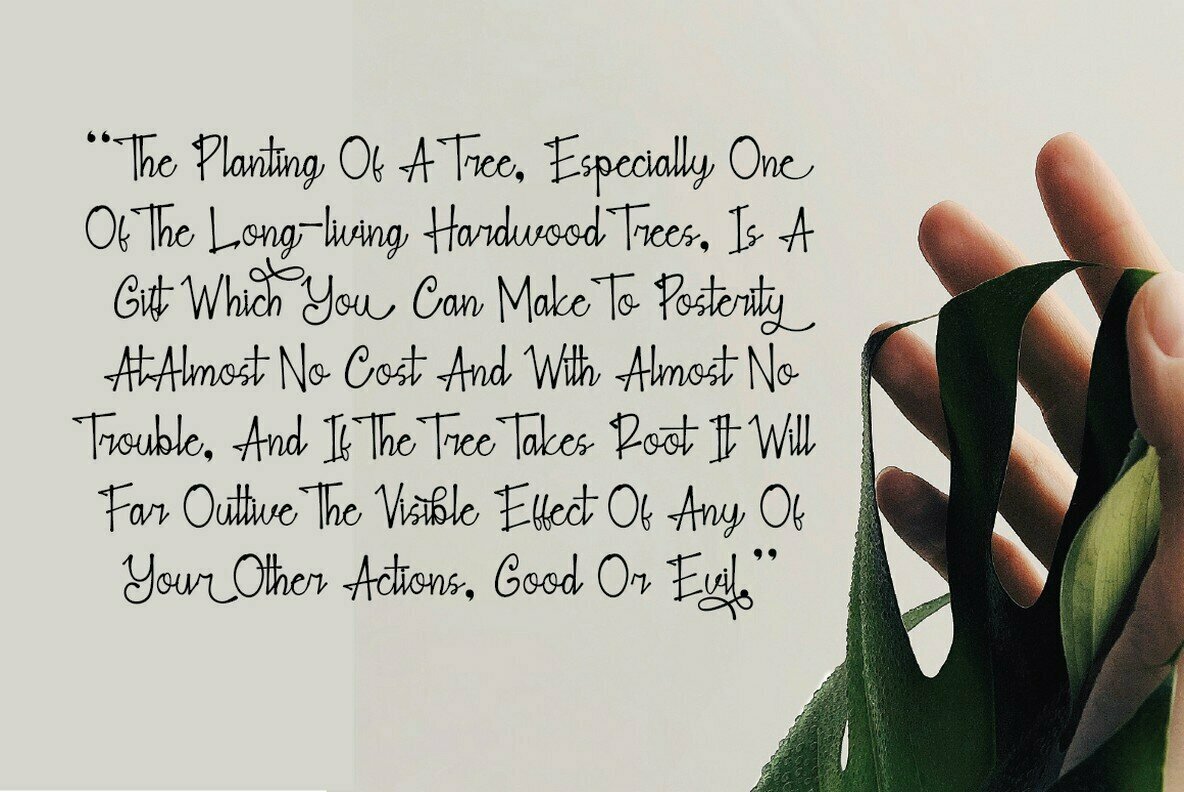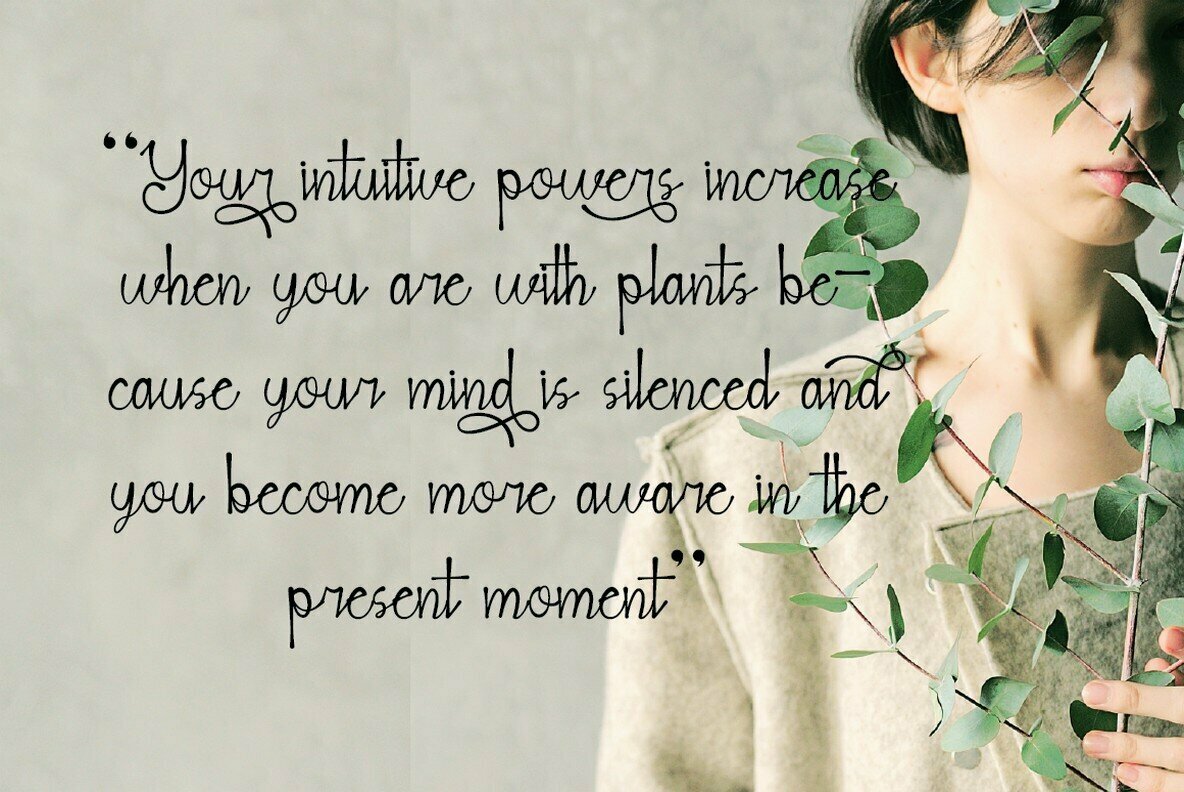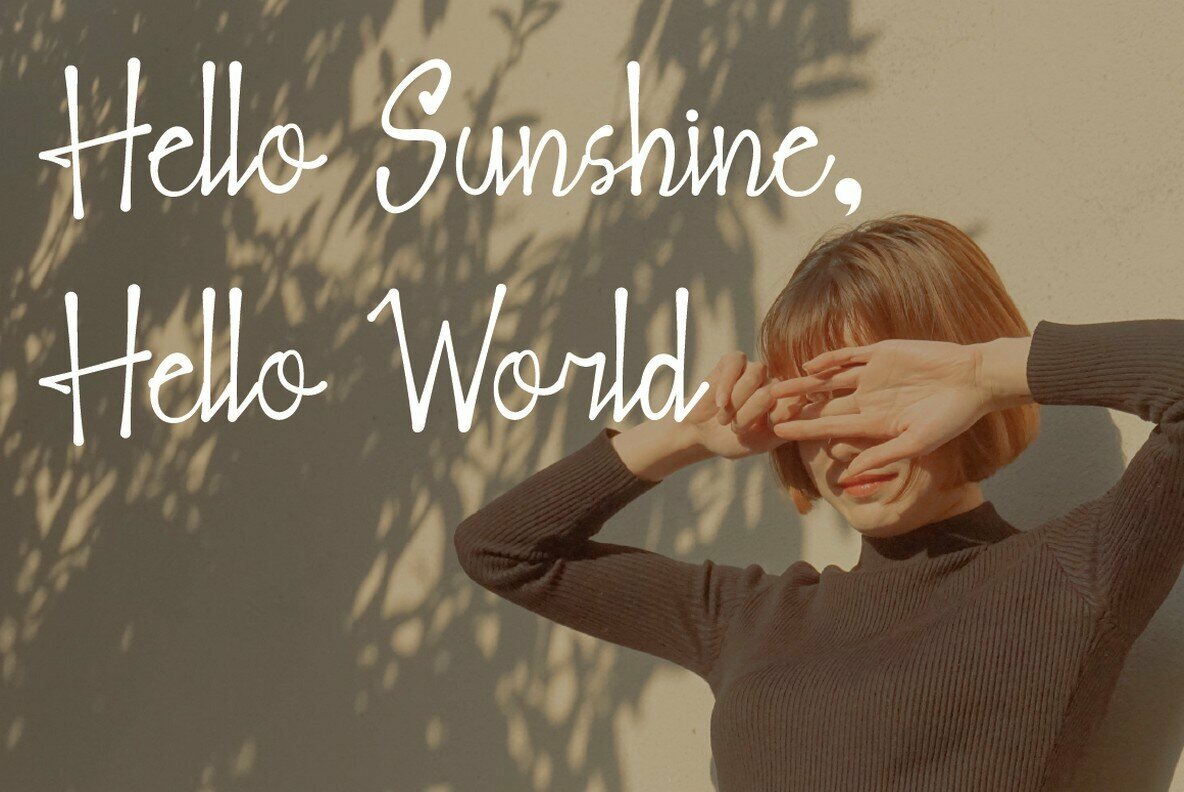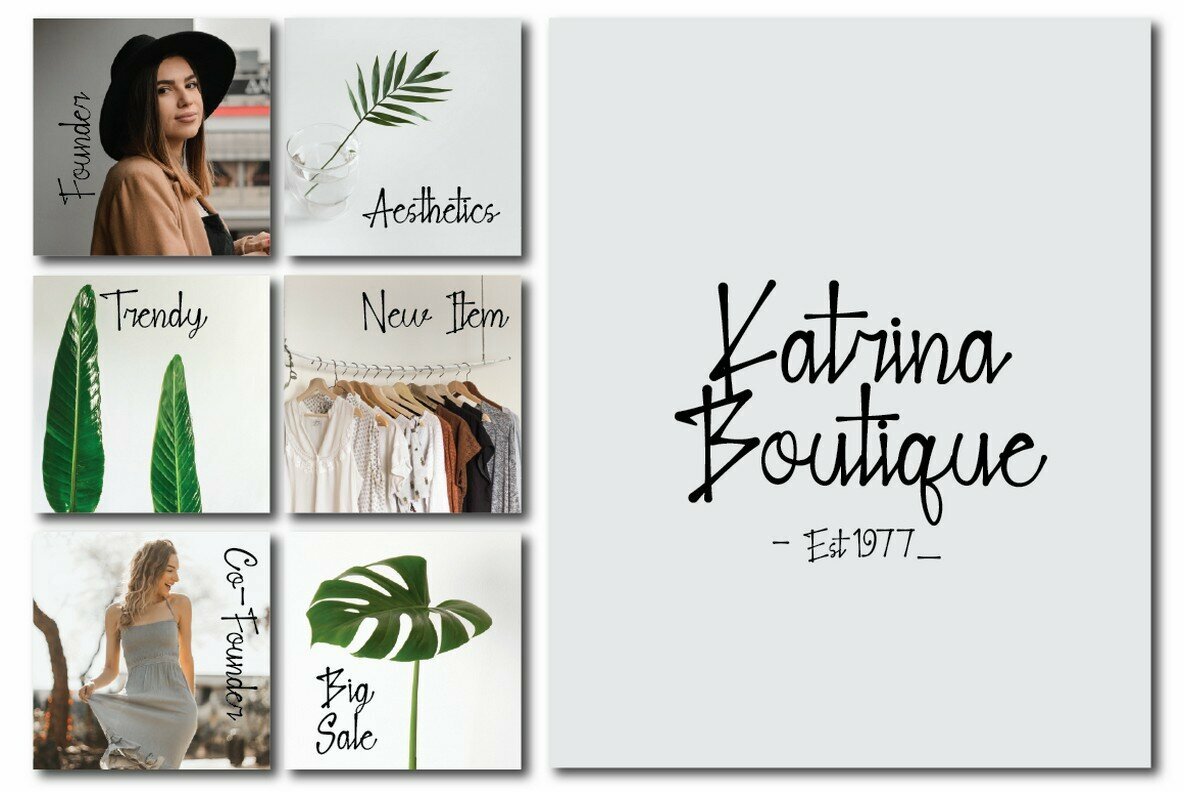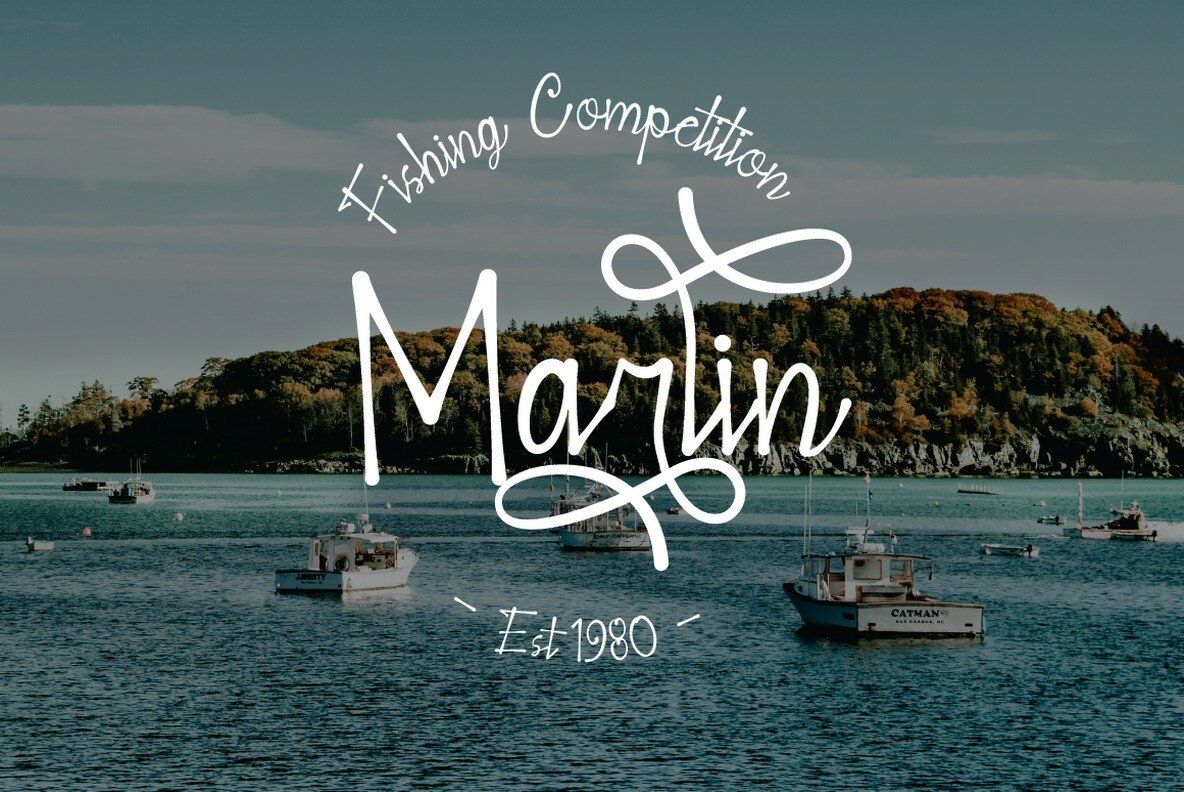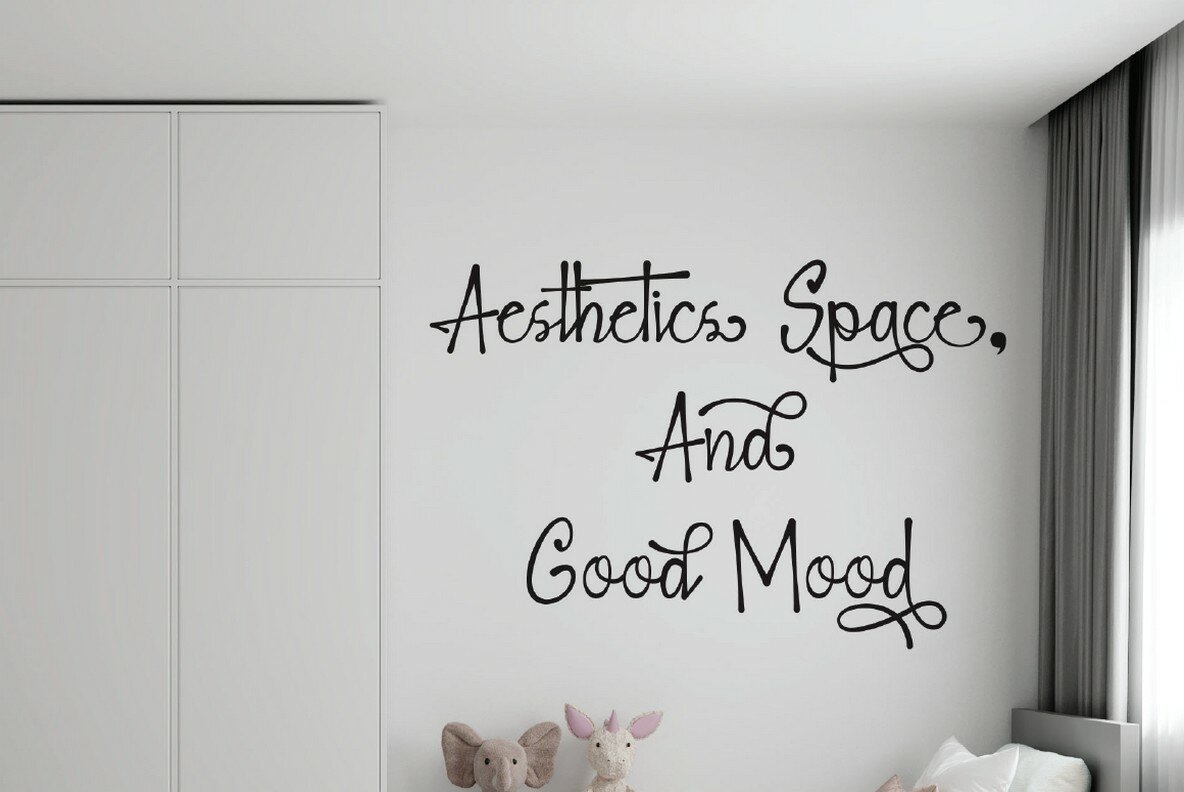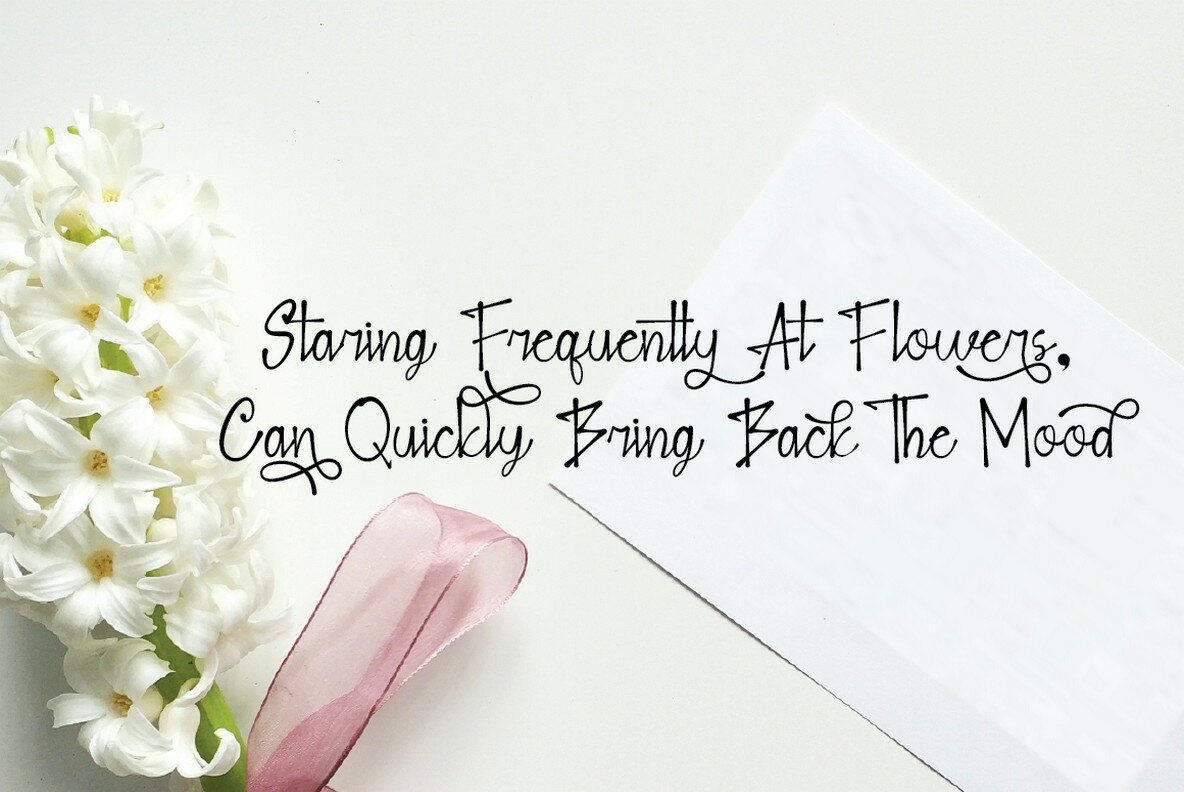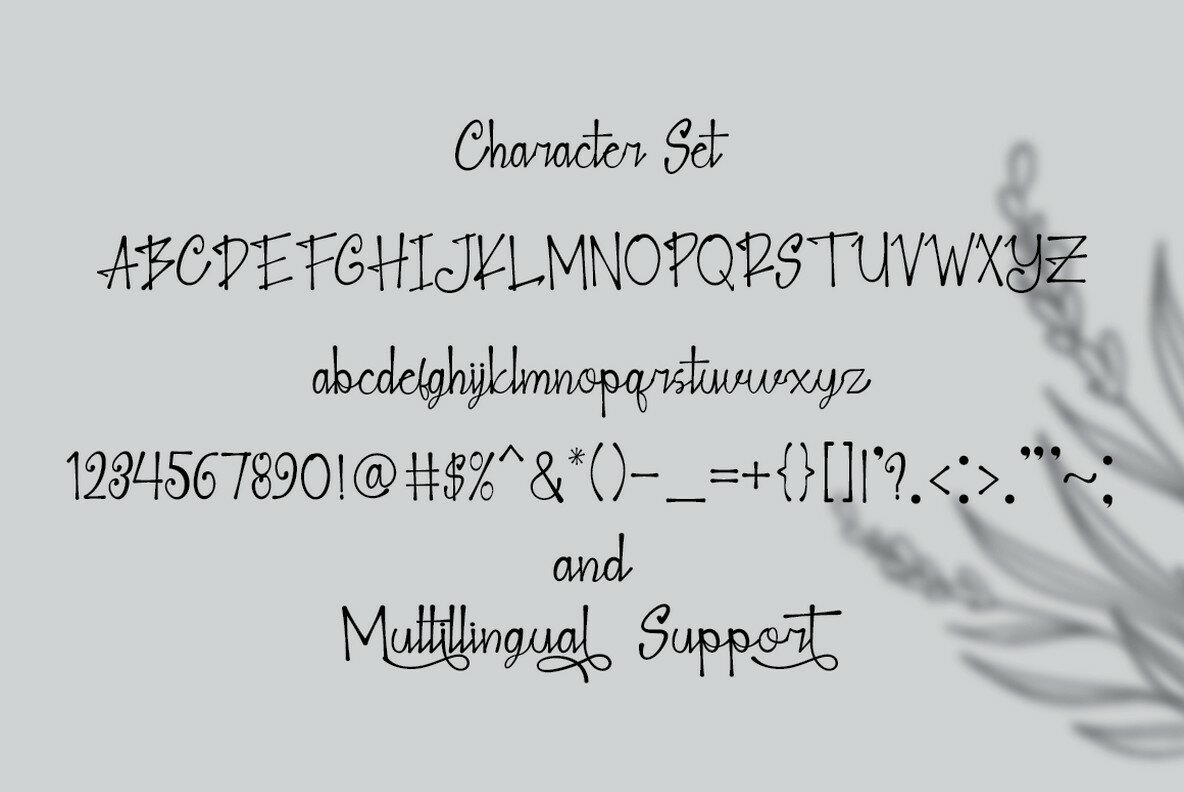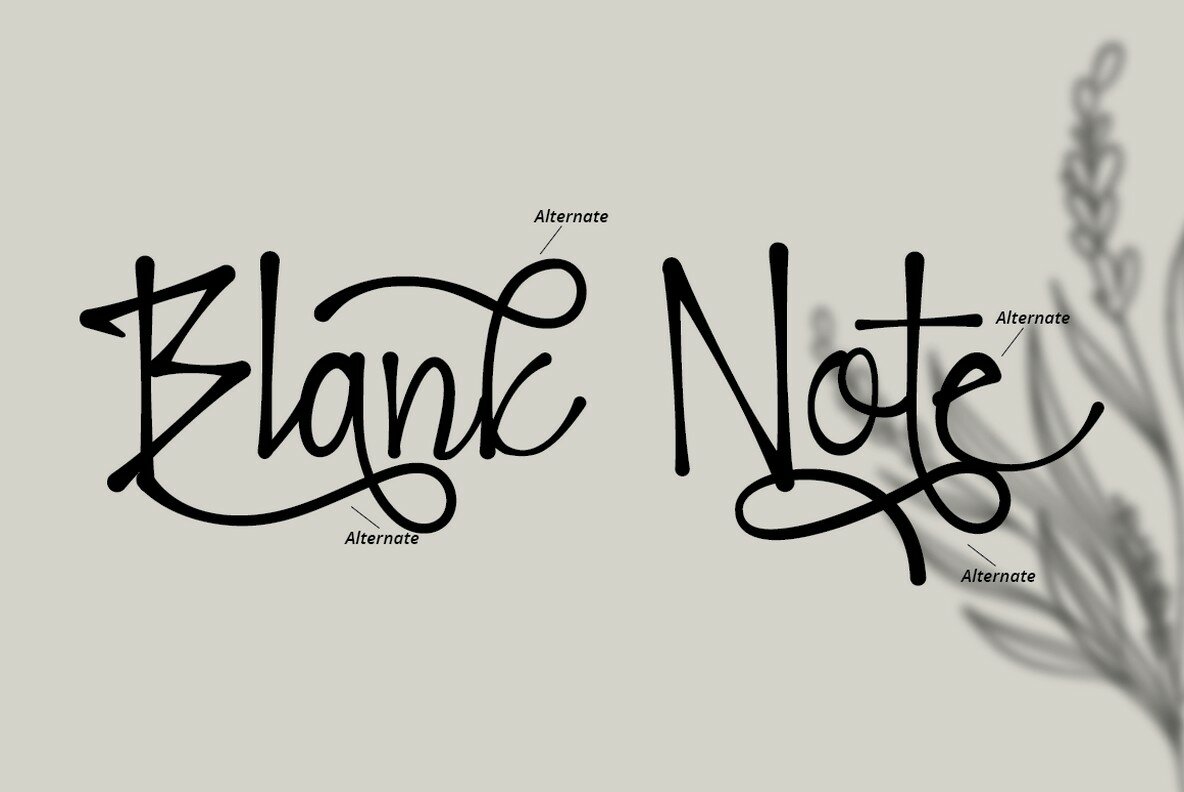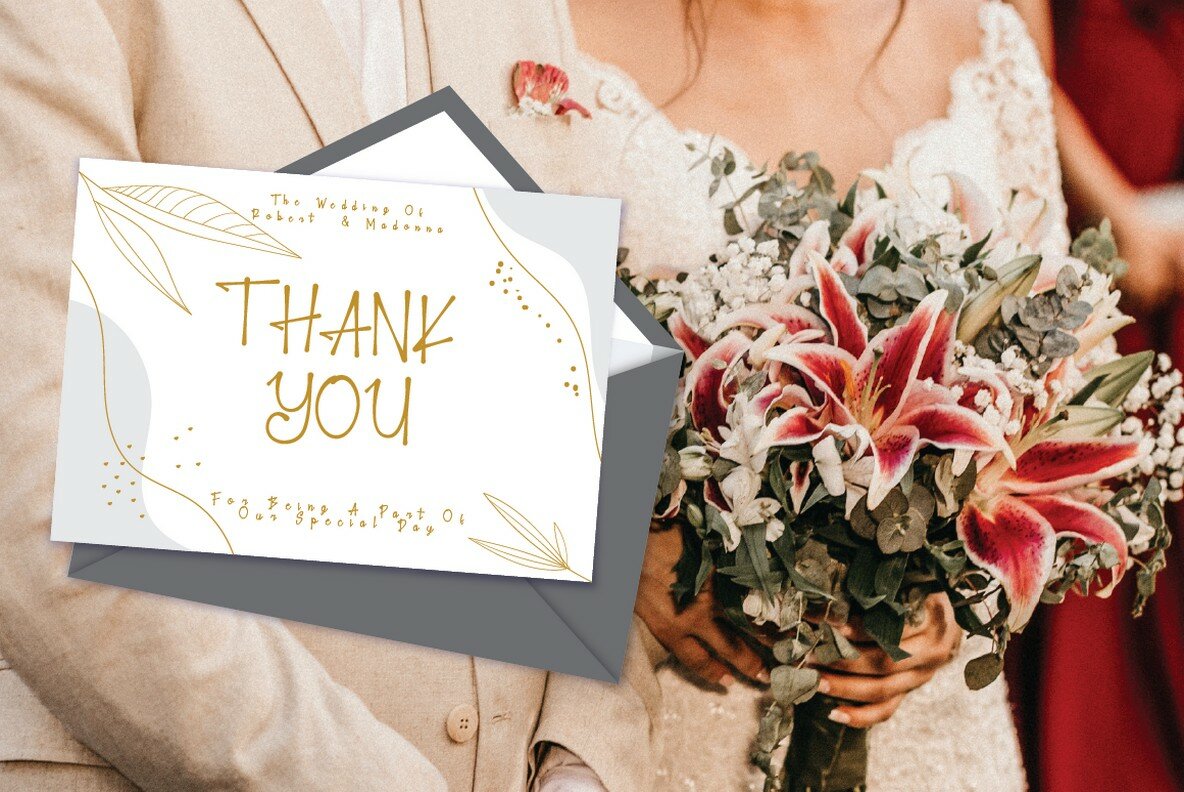
Blank Note Font
Blank Note
Handwritten script fonts offer a unique touch in various design projects. Blank Note, designed by Putra Novembria Candra Kusuma, exudes the elegance and spontaneity of ink handwriting, making it an excellent choice for projects requiring a personal touch. Its authentic letterform is ideal for crafting memorable logos, event invitations, and sophisticated stationery. Features: From wedding designs to social media posts, Blank Note adds a special flair to any creative endeavor, making it an essential asset for designers seeking authenticity and charm.Blank Note: The Versatile Handwritten Script